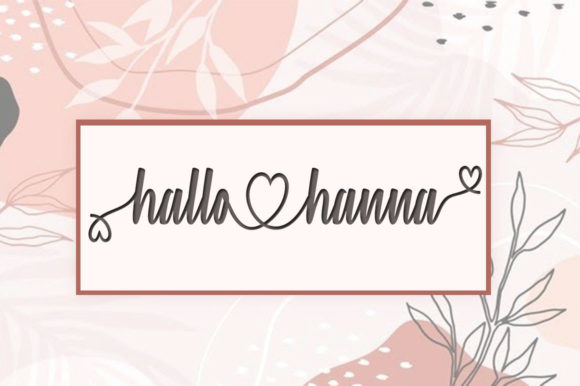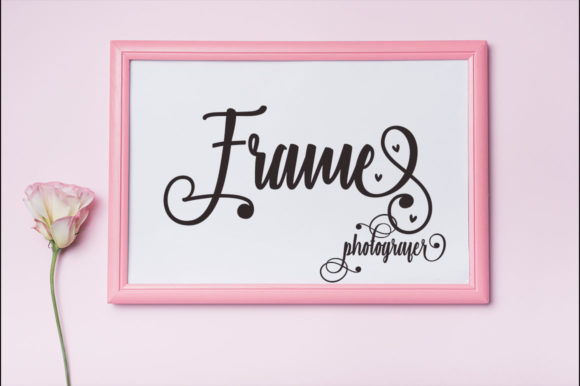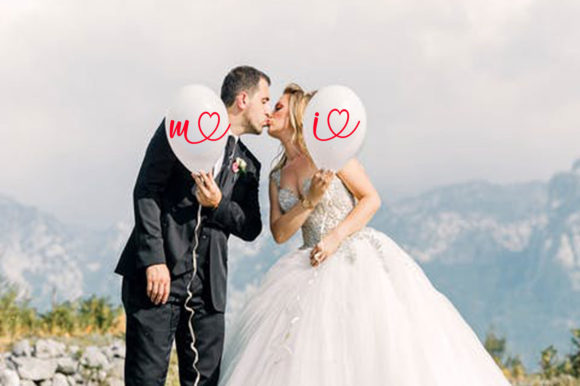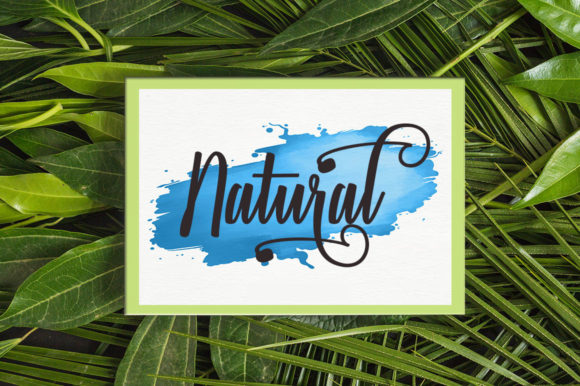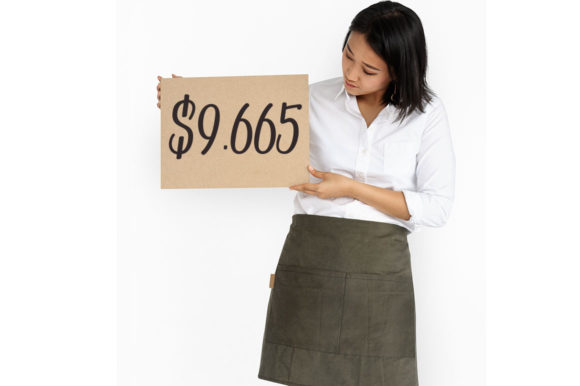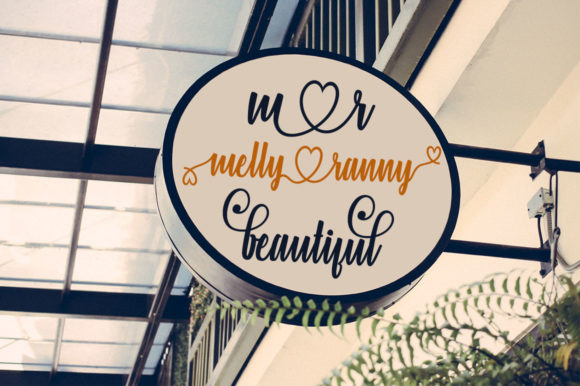
Discover the Elegance of Geutemala Font: Elevate Your Designs with a Delicate Touch
In the world of typography, a font can make or break a design. It’s the subtle nuances and unique characteristics of a font that can elevate a project from ordinary to extraordinary. If you’re a designer or crafter looking for a font that embodies elegance and sophistication, look no further than the Geutemala Font. This beautiful, handwritten font is sure to capture your heart and bring your creative ideas to life.
The Beauty of Geutemala Font
Geutemala Font is a delicate, elegant, and flowing script that exudes refinement and poise. Its well-balanced characters and exquisite letterforms make it an ideal choice for a wide range of design projects. Whether you’re working on a logo, branding materials, invitations, or digital content, Geutemala Font is sure to add a touch of sophistication and glamour.
One of the standout features of Geutemala Font is its versatility. Its classic and timeless design makes it suitable for various design styles, from modern and minimalist to vintage and ornate. This font is perfect for designers who want to add a personal touch to their work without overpowering the overall design.
PUA Encoding: Unlocking Endless Creative Possibilities
Geutemala Font is PUA (Private Use Area) encoded, which means that it comes with a vast array of glyphs and ligatures at your fingertips. With PUA encoding, you can easily access and use the font’s extended character set, including alternative letters, swashes, and ornaments. This feature allows you to experiment with different typography styles and create unique, eye-catching designs that showcase your creativity.
Why Choose Geutemala Font?
So, what sets Geutemala Font apart from other fonts in the market? Here are just a few reasons why designers and crafters love this beautiful font:
- Elegant and Refined: Geutemala Font boasts a sophisticated and elegant design that’s perfect for high-end branding, luxury packaging, and refined digital content.
- Versatile: This font is suitable for a wide range of design projects, from modern and minimalist to vintage and ornate.
- Easy to Use: Geutemala Font is PUA encoded, making it easy to access and use the font’s extended character set.
- High-Quality: This font is designed with precision and attention to detail, ensuring that it looks stunning in any design.
Tips for Using Geutemala Font in Your Designs
To get the most out of Geutemala Font, here are some tips to keep in mind:
- Pair it with Bold Fonts: Combine Geutemala Font with bold, sans-serif fonts to create striking contrast and visual interest.
- Experiment with Ligatures: Take advantage of Geutemala Font’s ligatures and glyphs to add a touch of elegance and sophistication to your designs.
- Use it for Headings and Titles: Geutemala Font is perfect for headings and titles, where its elegant and refined design can shine.
- Play with Colors: Experiment with different colors and textures to add depth and visual interest to your designs.
In conclusion, Geutemala Font is a stunning, handwritten font that offers a unique blend of elegance, sophistication, and versatility. With its PUA encoding and extended character set, this font provides endless creative possibilities for designers and crafters. Whether you’re working on a branding project, digital content, or craft project, Geutemala Font is sure to elevate your designs and bring your creative ideas to life.